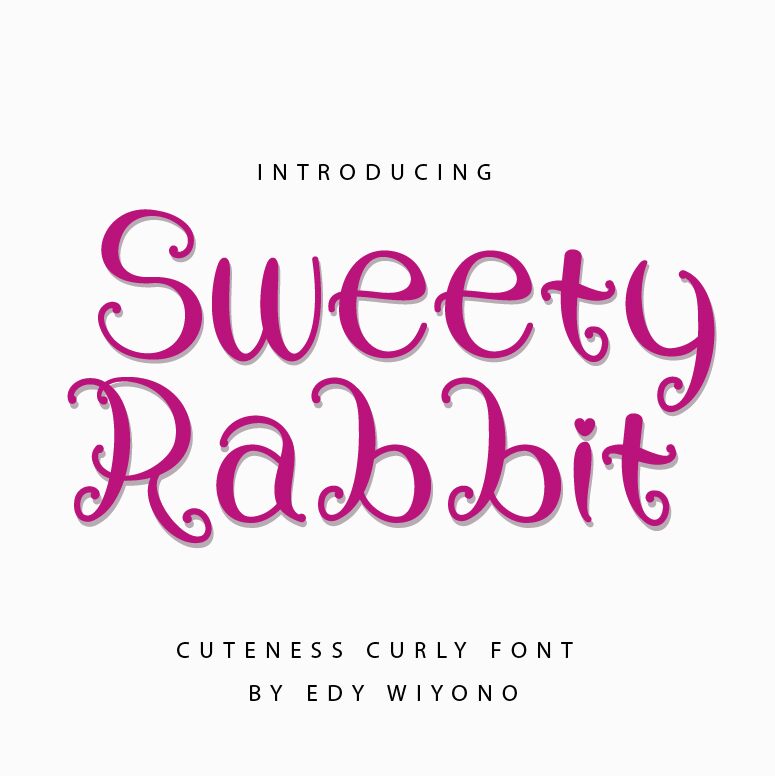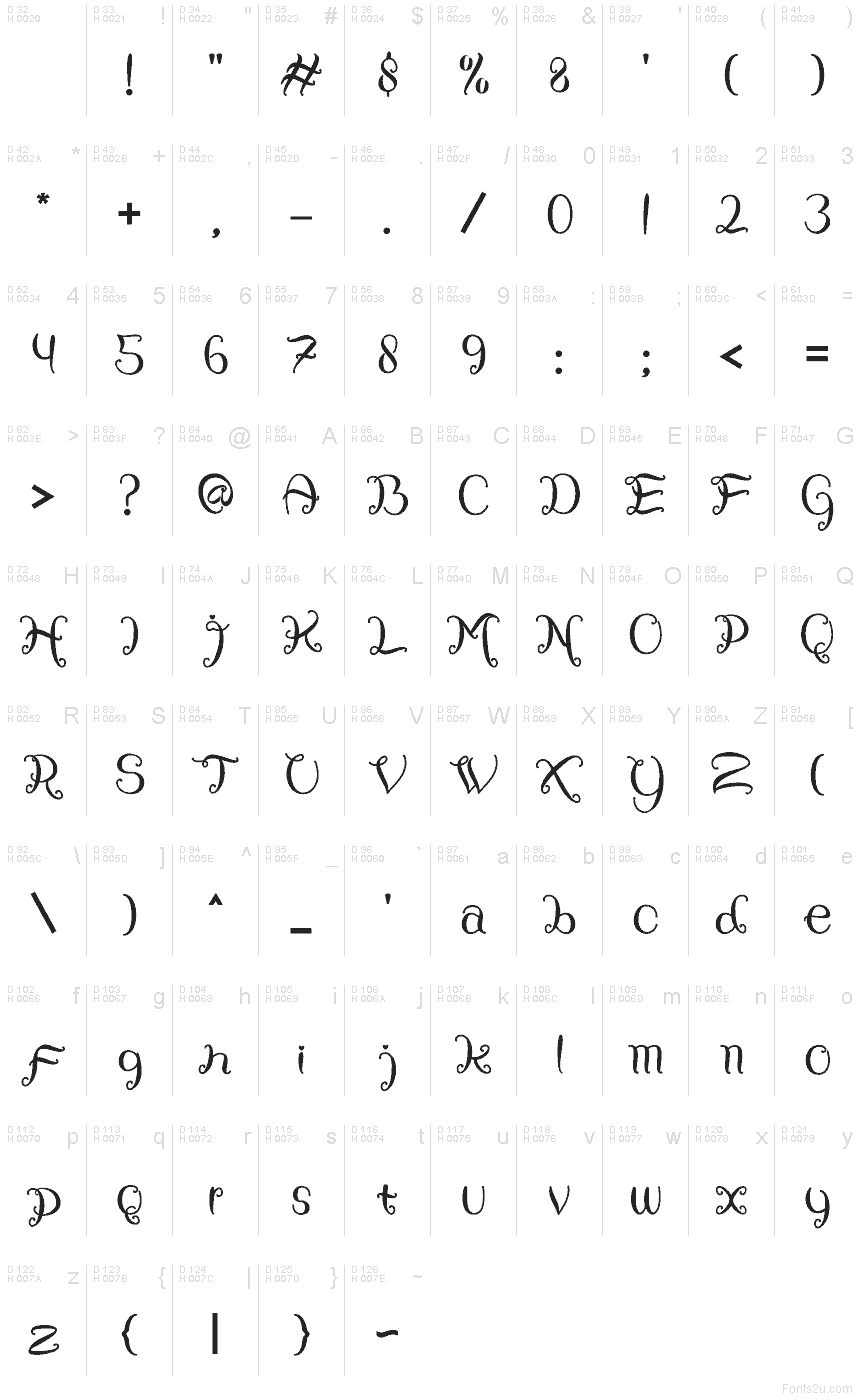
Sweety Rabbit
Sweety Rabbit font by Edy Wiyono is a free curly display typeface that feels like it was doodled in the margins of a storybook. Its light, bouncy strokes and looping curls give every word a hand-drawn, sugary charm, like icing piped onto a cupcake. The letters stay legible despite all the swirls, so you get plenty of personality without sacrificing readability.
Using Sweety Rabbit, you can bring a playful, crafty touch to kids’ party invitations, classroom posters, greeting cards, coloring pages, product packaging, and whimsical branding. This free font shines when used large as a headline, supported by a simple sans serif for body text. Keep colors soft and bright—think pastel pinks, mints, and sky blues—to let its curly forms really sing.